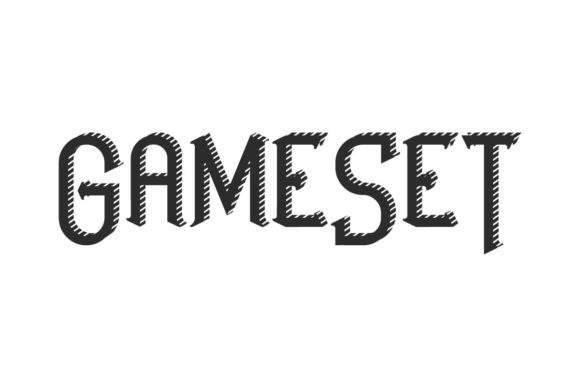
Introducing GameSet Font: Elevate Your Designs with a Cool and Unique Display Font
Are you tired of using the same old fonts in your designs? Do you want to add a touch of excitement and personality to your creations? Look no further than GameSet Font, a cool and uniquely designed display font that’s sure to take your designs to the next level. In this article, we’ll explore the features and benefits of GameSet Font, and why it’s an incredible asset to your font library.
What is GameSet Font?
GameSet Font is a display font designed to make a statement. Its unique and cool design makes it perfect for a wide range of applications, from gaming and tech-related designs to posters, logos, and branding materials. The font’s distinctive style is sure to grab attention and leave a lasting impression on your audience.
Key Features of GameSet Font
- Unique Design: GameSet Font boasts a one-of-a-kind design that’s sure to set your designs apart from the crowd.
- Versatility: This font is perfect for a wide range of applications, from digital designs to print materials.
- High-Impact: GameSet Font is designed to make a statement, making it perfect for headlines, titles, and other attention-grabbing elements.
- Ease of Use: This font is easy to read and works well in both uppercase and lowercase.
Why You Need GameSet Font in Your Library
As a designer or crafter, you know how important it is to have a diverse font library at your disposal. GameSet Font is an incredible asset to your library, as it has the potential to elevate any creation. Here are just a few reasons why:
- Adds Personality: GameSet Font adds a touch of personality and whimsy to your designs, making them more engaging and memorable.
- Enhances Creativity: This font’s unique design inspires creativity and experimentation, helping you to push the boundaries of your designs.
- Perfect for Branding: GameSet Font is perfect for creating distinctive brand identities that stand out from the competition.
- Headlines and Titles: Use GameSet Font for headlines and titles to grab attention and add visual interest.
- Logos and Branding: Create distinctive logos and branding materials that showcase your brand’s personality.
- Posters and Flyers: Add a touch of excitement to your posters and flyers with GameSet Font.
- Digital Designs: Use GameSet Font in your digital designs, such as social media graphics and website headers.